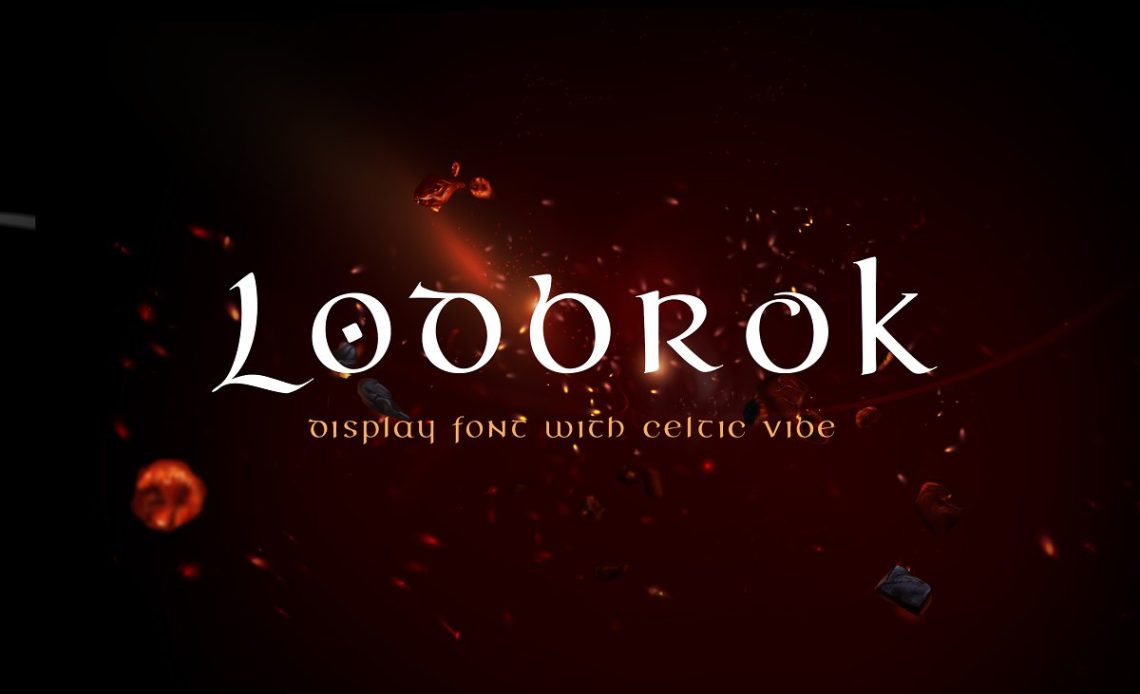
Looking for a font that will transport you to the times of the Celtic and Viking warriors? Look no further than Lodbrok Celtic / Viking Display Font! This calligraphic font, created by the talented Alex Ivanov, is a perfect blend of uncial and gothic cursive scripts. Its readability is unmatched, while the Celtic, medieval, and Viking aesthetics of the font are sure to leave a lasting impression.
Lodbrok Celtic / Viking Display Font is not just any script font - it is a font for manuscripts! The basic Latin and Scandinavian character sets are supported, and there are even alternative options for some letters. The font is versatile enough to suit a variety of products and niches, but it really shines when used for beer, whiskey, Scotland, Ireland, Norway, Sweden, magic, or gaming products. Whether you're designing a label or creating a logo, Lodbrok Celtic / Viking Display Font is sure to elevate your design to the next level.
This font is perfect for anyone who wants to add a touch of history and magic to their designs. It is a great way to create a unique and eye-catching aesthetic, while also showcasing your love for Celtic and Viking cultures. With its excellent readability, you can be sure that your message will be conveyed loud and clear. Whether you're a graphic designer, a marketer, or a business owner, Lodbrok Celtic / Viking Display Font is the perfect tool to help you stand out from the competition.
In summary, Lodbrok Celtic / Viking Display Font is a one-of-a-kind script font that is perfect for anyone looking to add a touch of magic and history to their designs. With its excellent readability and unique aesthetic, this font is sure to capture the attention of your audience and leave a lasting impression. Get your hands on the .otf file today and take your designs to the next level!